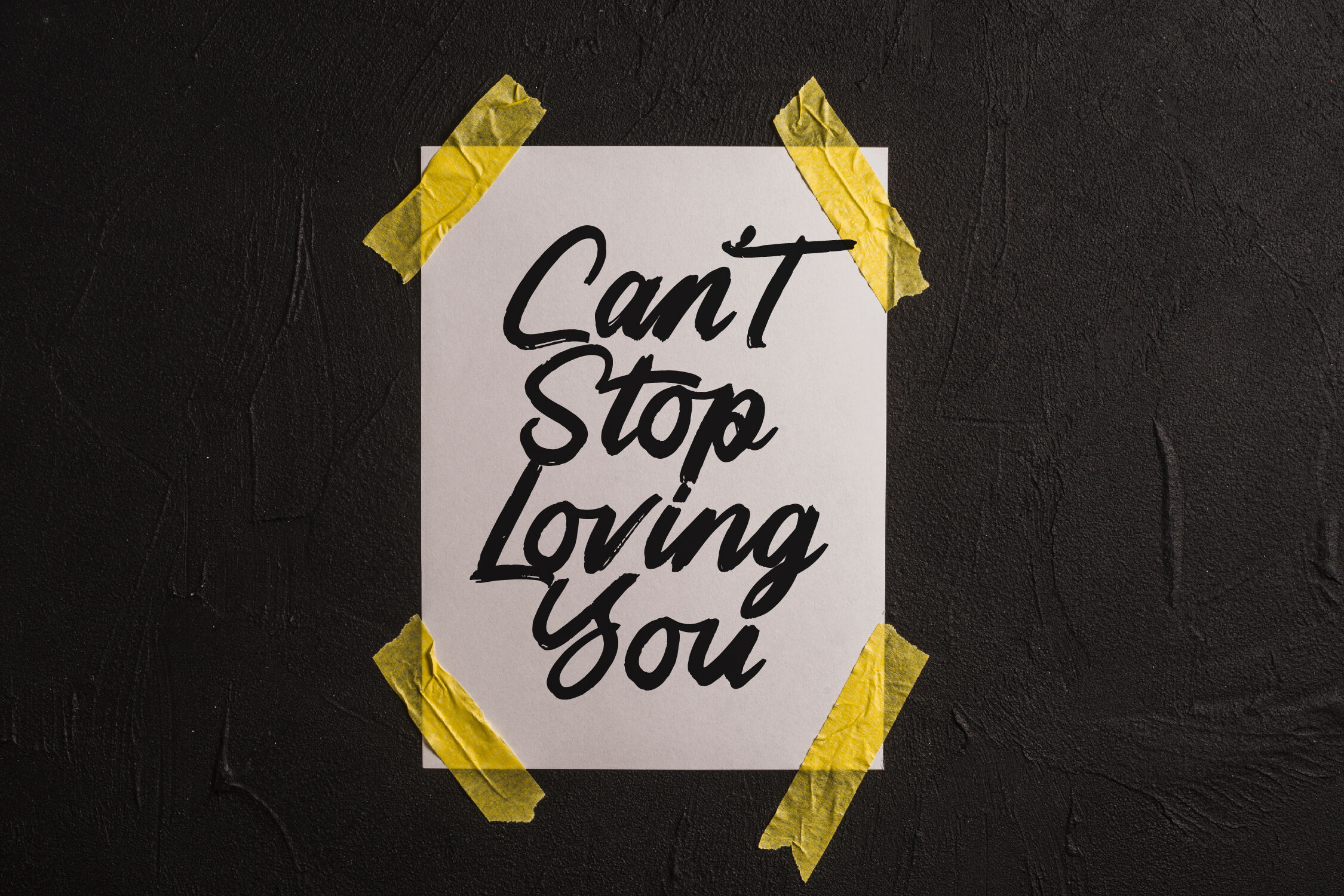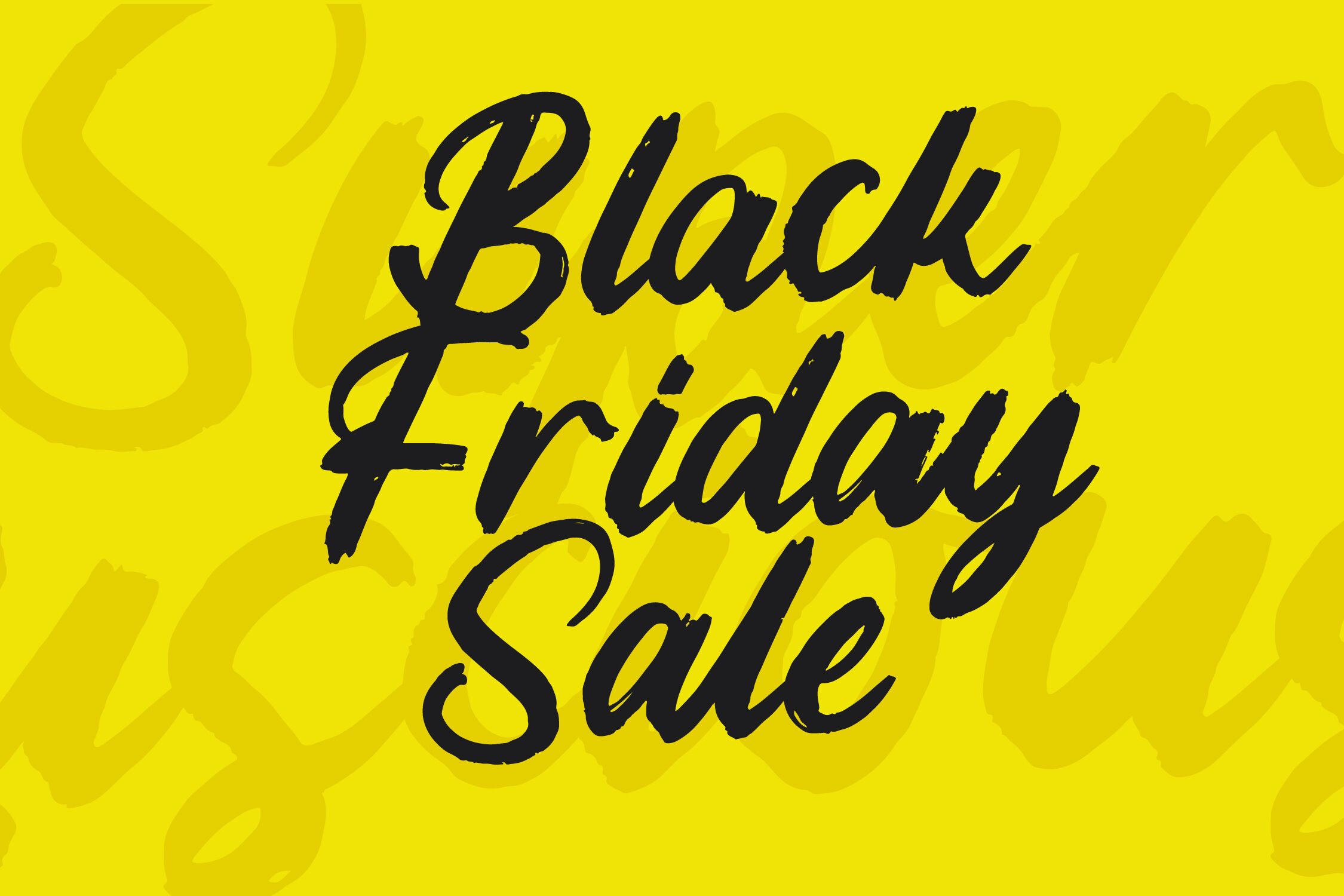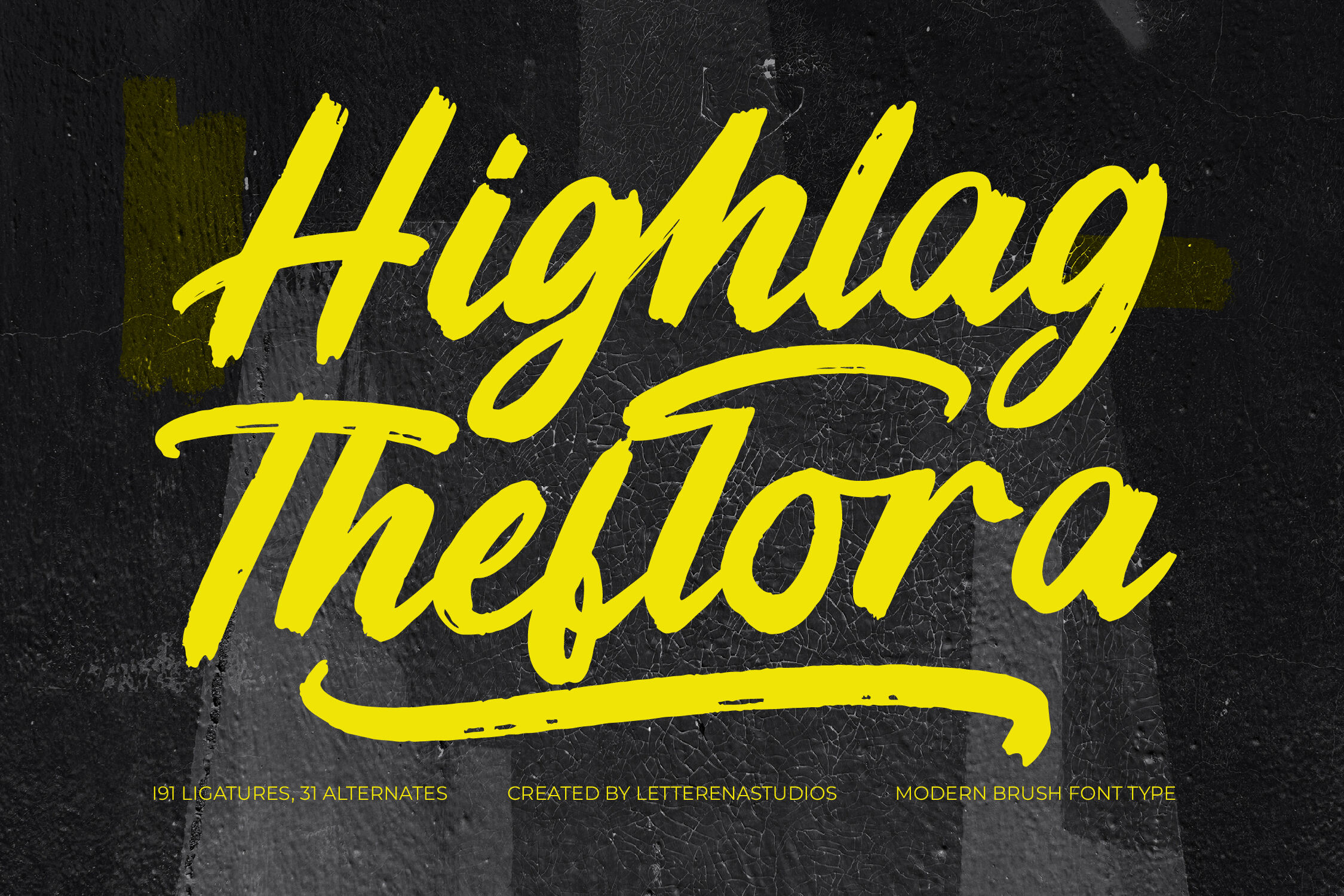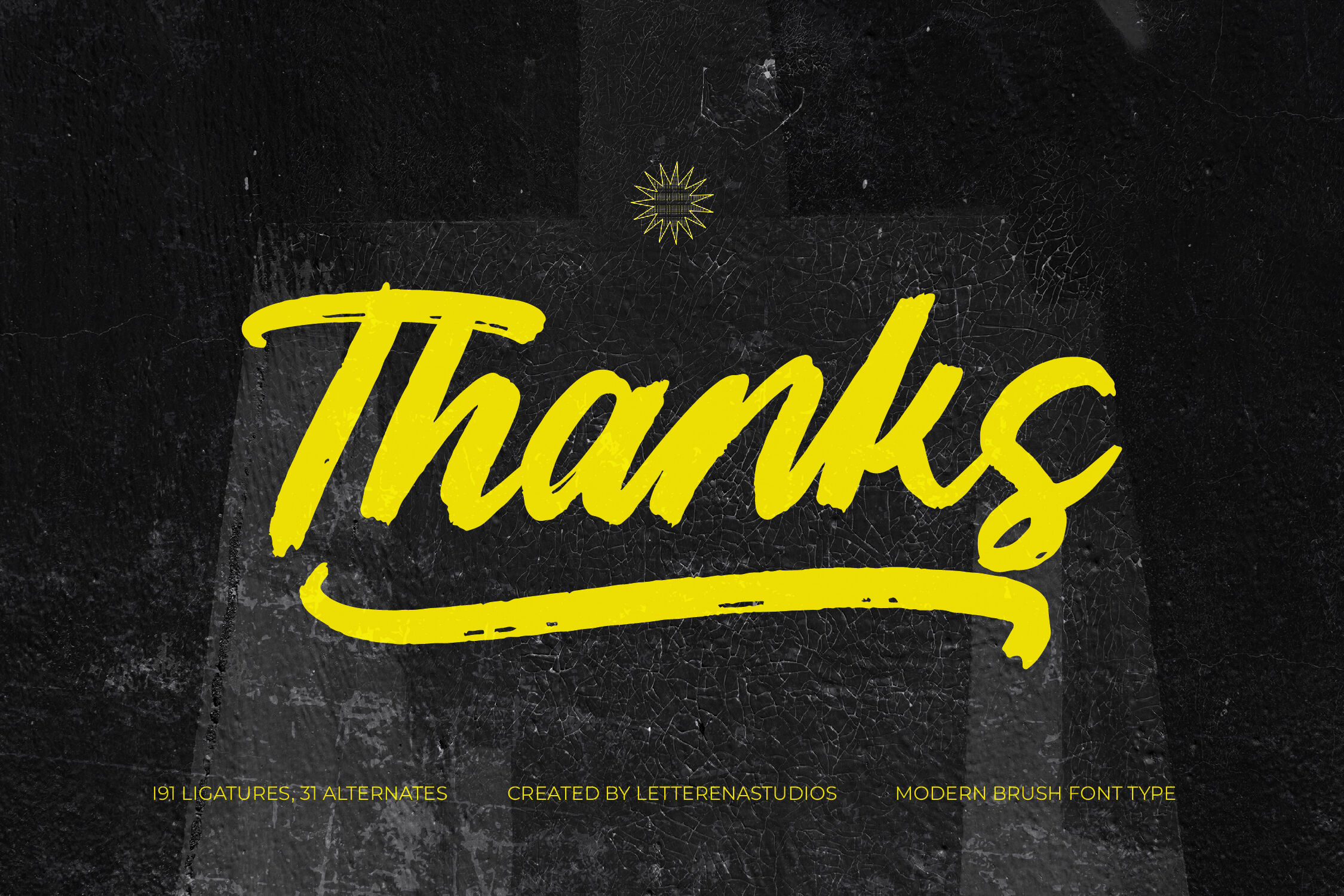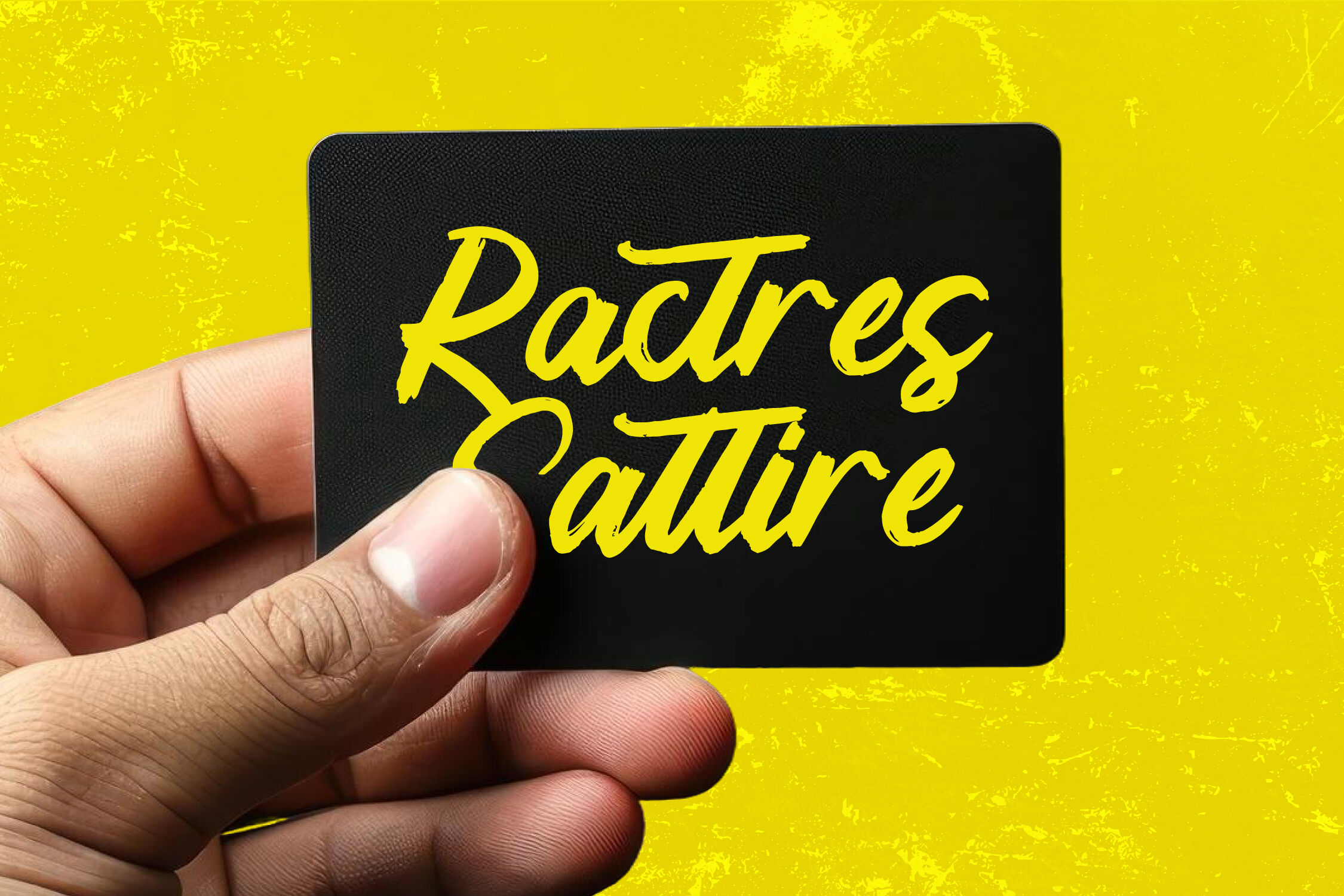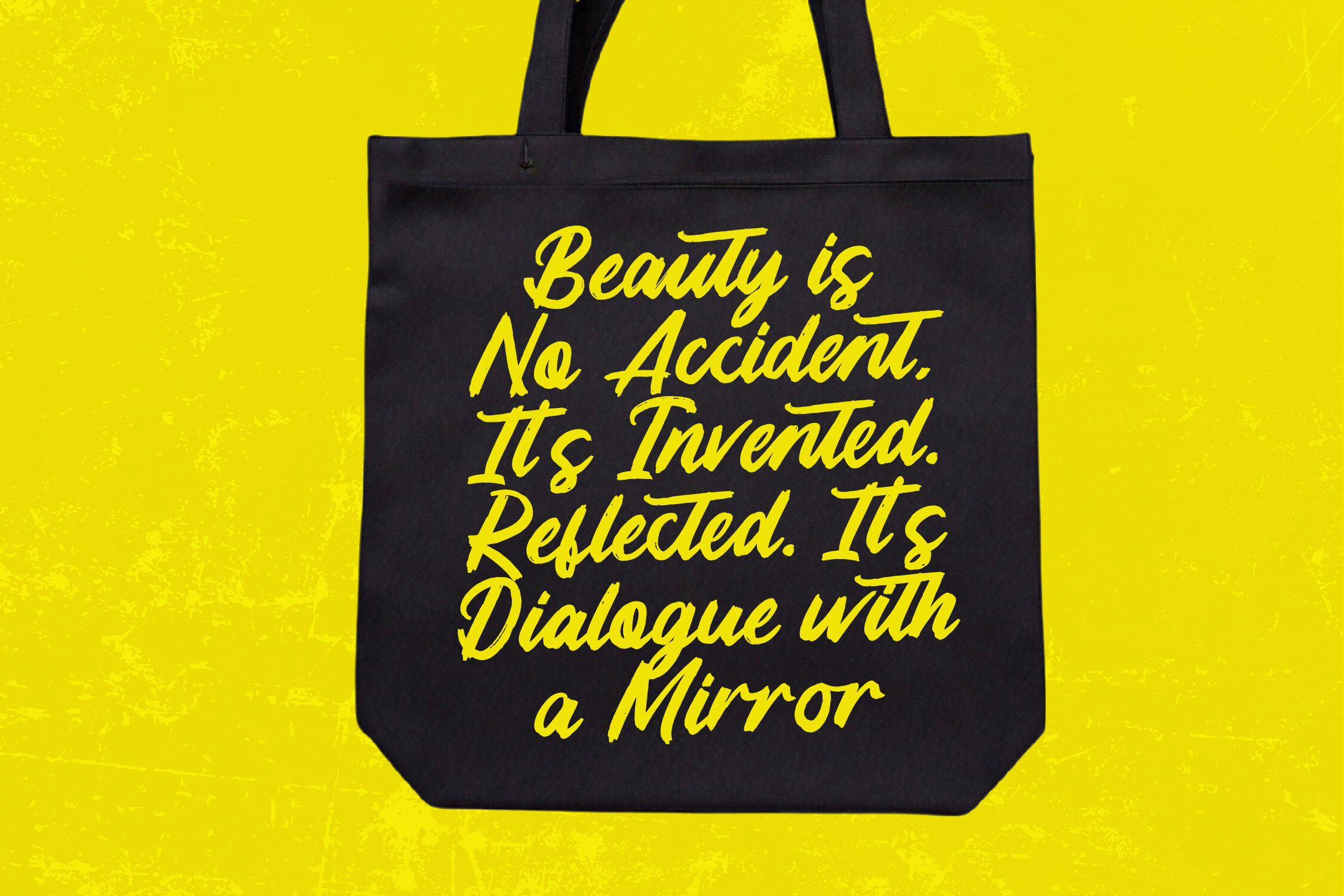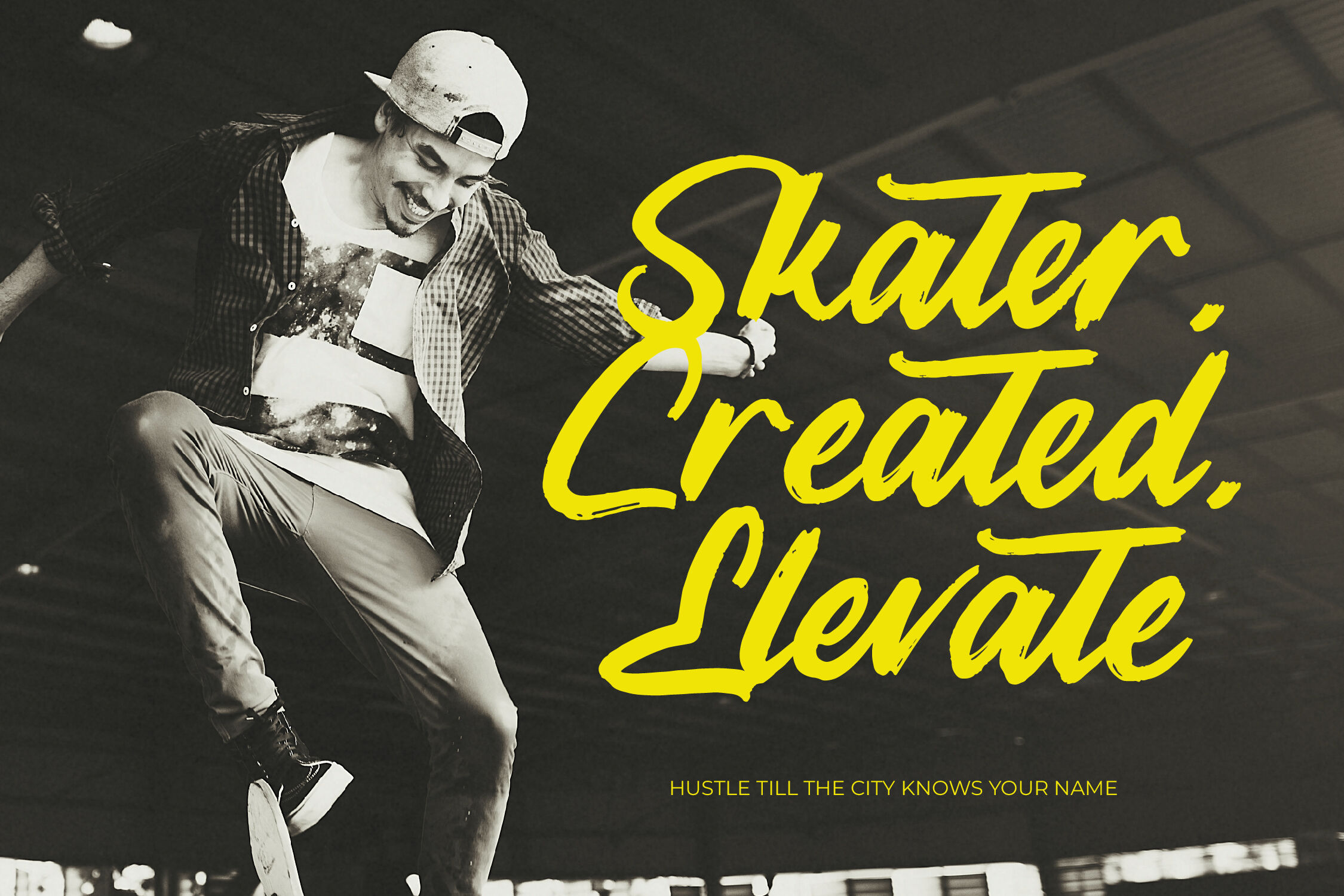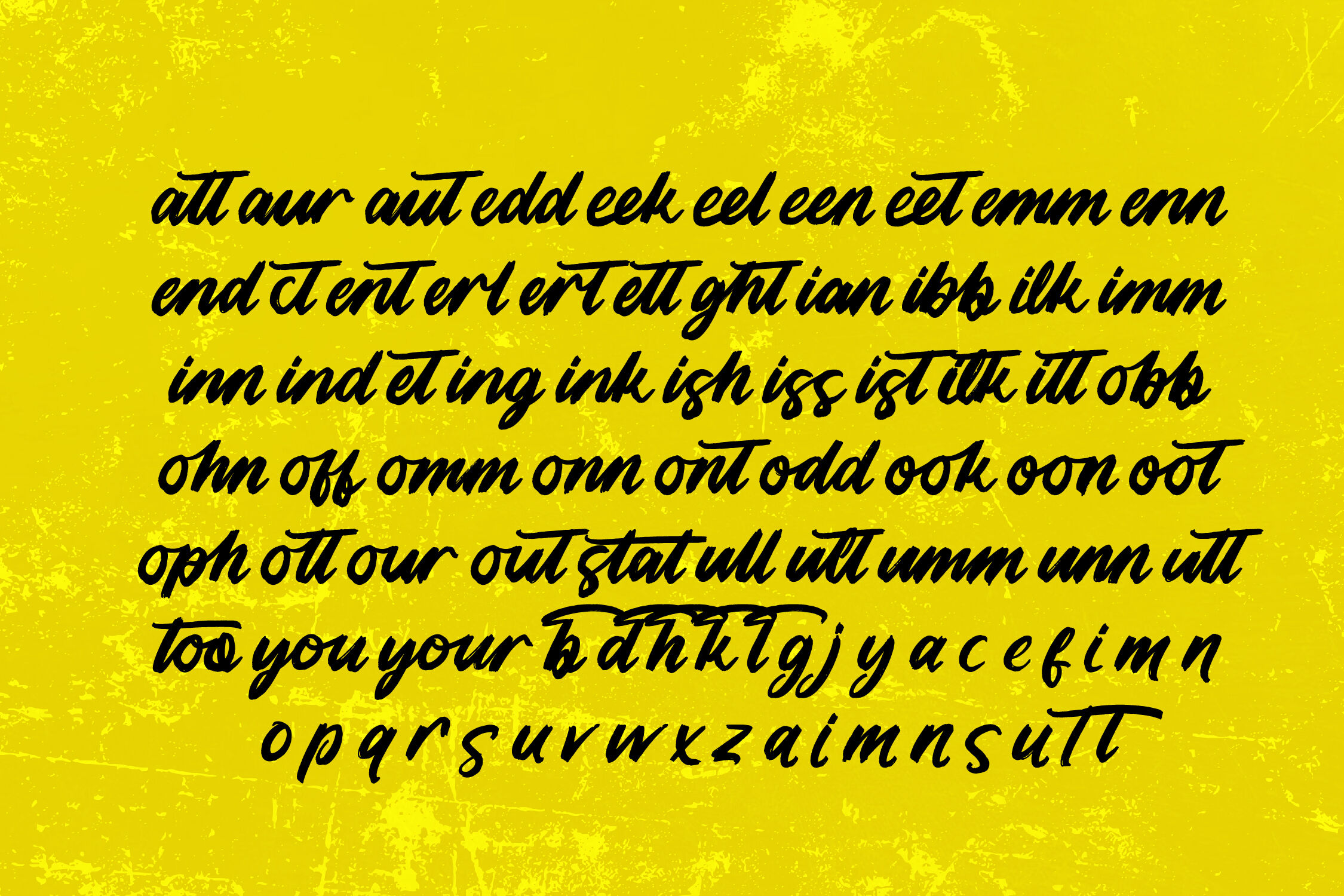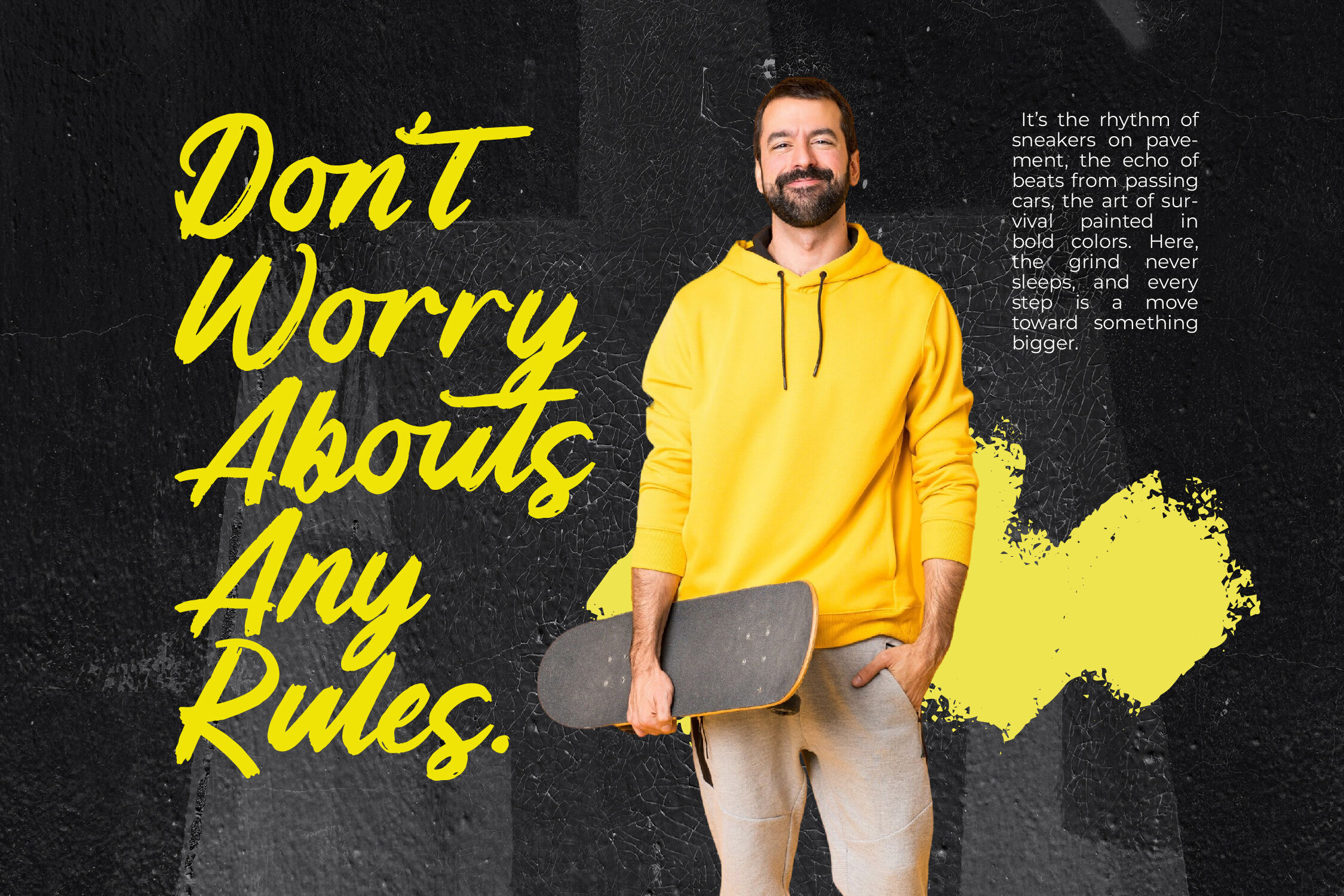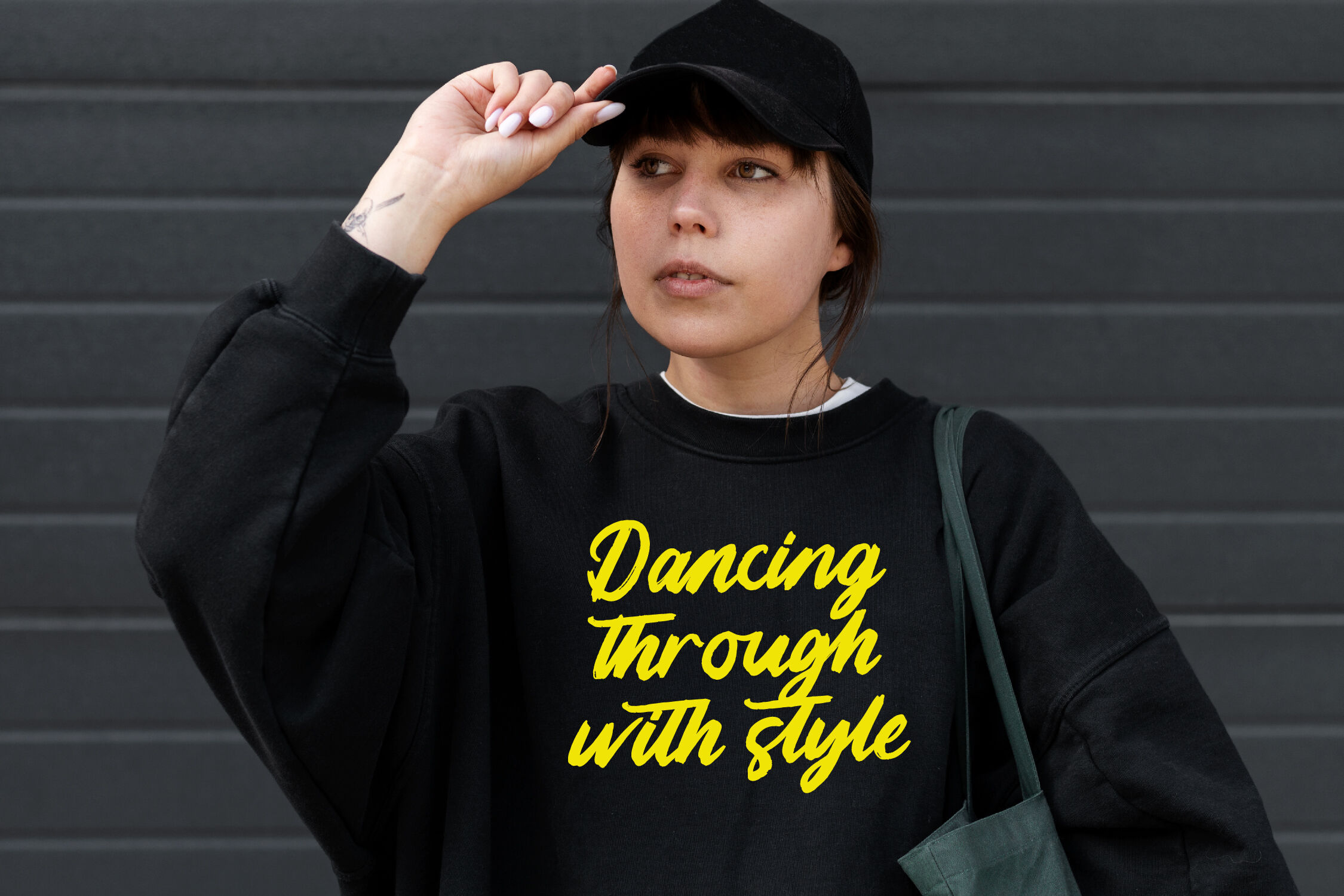
Highlag Theflora - Modern Brush Font Type
Highlag Theflora - Modern Brush Font Type, from Letterena, is a Luxury Script font, suitable for any projects such as: logos, branding projects, homeware designs, product packaging, mugs, quotes, posters, shopping bags, t-shirts, book covers, name card, invitation cards, greeting cards, label, photography, watermark, special events, and all your other luxury and beautiful projects that need a Luxury Script taste.
Highlag Theflora Italic
Highlag Theflora
Highlag Theflora - Modern Brush Font Type